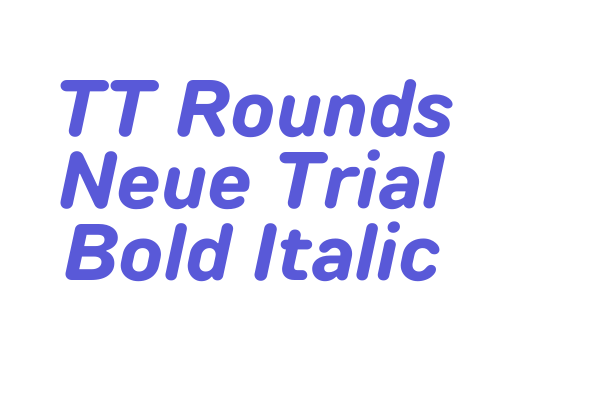
TT Rounds Neue Trial Bold Italic is a modern and sleek sans-serif font designed by Ivan Gladkikh and Yulia Gonina. With a bold italic style, this font exudes confidence and sophistication, making it perfect for headlines, titles, and branding materials. Its clean and rounded design adds a touch of elegance to any project, making it versatile for a wide range of design applications.
Font Name: TT Rounds Neue Trial Bold Italic
Designer: Designed by Ivan Gladkikh, Yulia Gonina. Technical designers Olexa Volochay, Philipp Nurullin, Nadyr Rakhimov, Marina Khodak, Anastasia Pogorelova, Yuriy Nako, Victor Rubenko.
Font Family: TT Rounds Neue Trial